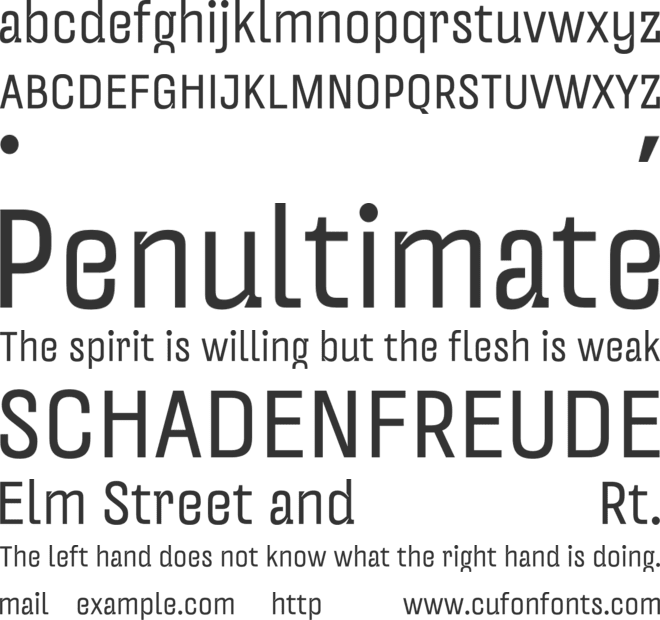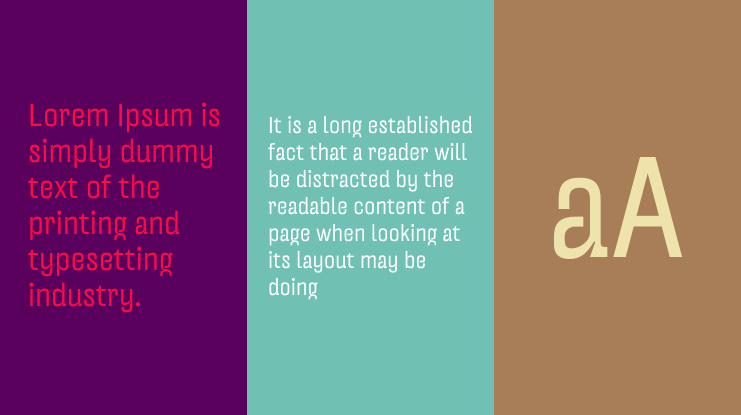
UT Garoga Font
Universitype Foundry
UT Garoga is a retro-leaning sans serif with a playful ink-trap character and a carefully engineered structure. Rounded corners, exaggerated ink traps, and soft terminals give it a friendly tone, while its solid construction keeps everything feeling intentional and steady.